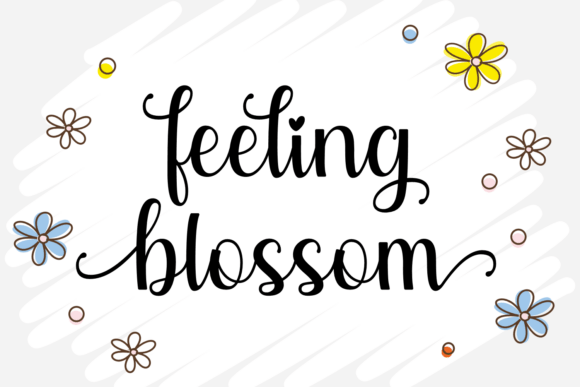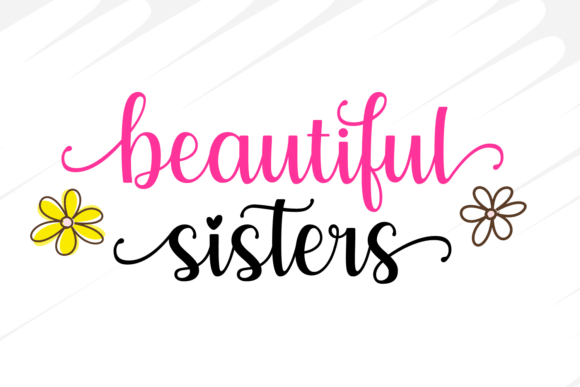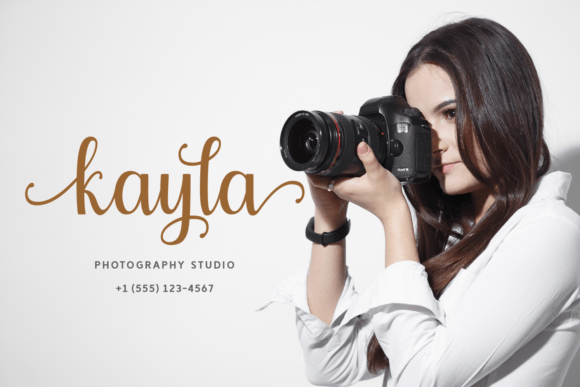
Introduction to Olife Font
As you sit at your desk, surrounded by papers, pencils, and design software, you often find yourself searching for that perfect font to elevate your creative project. And then, it happens – you stumble upon Olife Font, a beautiful script calligraphy font that instantly captures your attention and sparks your imagination.
Olife Font is more than just a design resource; it’s a tool that can transport your audience to a world of natural elegance and organic charm. With its flowing, hand-drawn letterforms, smooth curves, and delicate swashes, Olife Font is perfect for designers who crave a soft, feminine touch in their work.
Whether you’re working on a wedding invitation, a nature-inspired branding project, or a design that requires a high level of sophistication, Olife Font is an essential choice. Its versatility, combined with its free-flowing style, makes it an invaluable resource for designers who value high-quality designs with a transparent background.
Key Features of Olife Font
- High-quality, vector-based design resource ideal for creative projects
- Unique, modern design aesthetic, making it perfect for contemporary creative projects
Honest Review: Olife Font
As a designer, I’m always on the lookout for high-quality design resources to enhance my creative projects. The Olife Font is one such resource that caught my attention.
What works well about the Olife Font is its modern and sleek design. The font is perfect for creating visually appealing graphics, logos, and even digital displays. I also appreciate the fact that the font is available for free download, making it an excellent choice for designers on a budget.
- ✨ High-quality design with a modern feel
- ✨ Can be used for a variety of creative projects, including graphics, logos, and digital displays
However, I do have some reservations about the font’s limitations. For instance, the font doesn’t support transparent background, which can be a limitation for designers who require this feature.
- ⚠️ Limited support for transparent background
Overall, I’m impressed with the Olife Font’s design and versatility. While it may have some limitations, it’s still a valuable addition to any designer’s toolkit. If you’re looking for a high-quality font for your creative project, I’d definitely recommend giving the Olife Font a try.
The Olife Font is a high-quality design resource that offers a unique and creative font for various projects. It can be easily downloaded and integrated into your favorite design software.
The Olife Font is suitable for a variety of creative projects, including:
- Business cards and brochures.
- Logos and branding materials.
- Infographics and presentations.
- Web design and digital marketing materials.